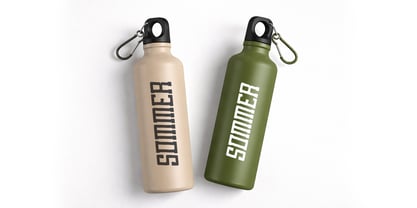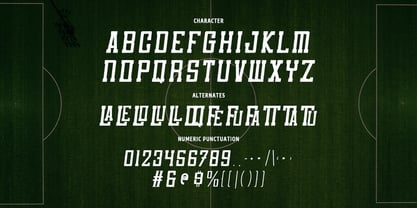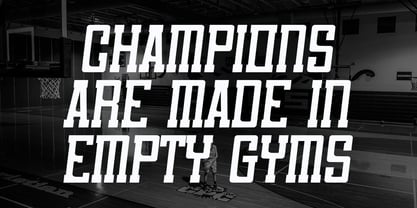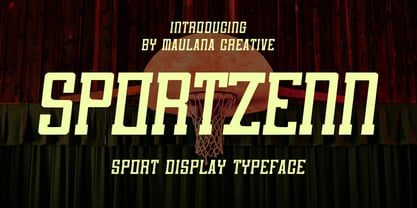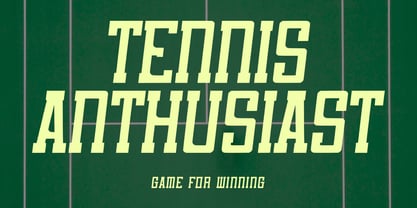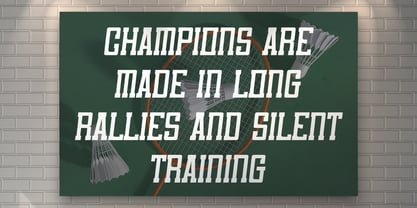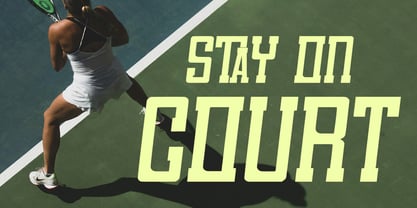
MC Sportzenn
by Maulana Creative
The MC Sportzenn Font Family was designed by Gilang Maulana and published by Maulana Creative. MC Sportzenn contains 1 styles. More about this family
Sportzenn is a high octane display typeface designed to capture the raw energy and competitive spirit of the sporting world. With its blocky, condensed structure and sharp slab serif accents, it evokes the classic feel of varsity jerseys and stadium scoreboards while maintaining a modern, aggressive edge. This font is built for impact, making it the perfect choice for team branding, sports event, athletic, and fitness themed social media content. It includes a full set of uppercase characters, numbers, and unique decorative ligatures (alternates) that allow for customized, professional level typography. Whether you're designing for basketball, tennis, or high intensity training, Sportzenn delivers a "game-winning" aesthetic every time.